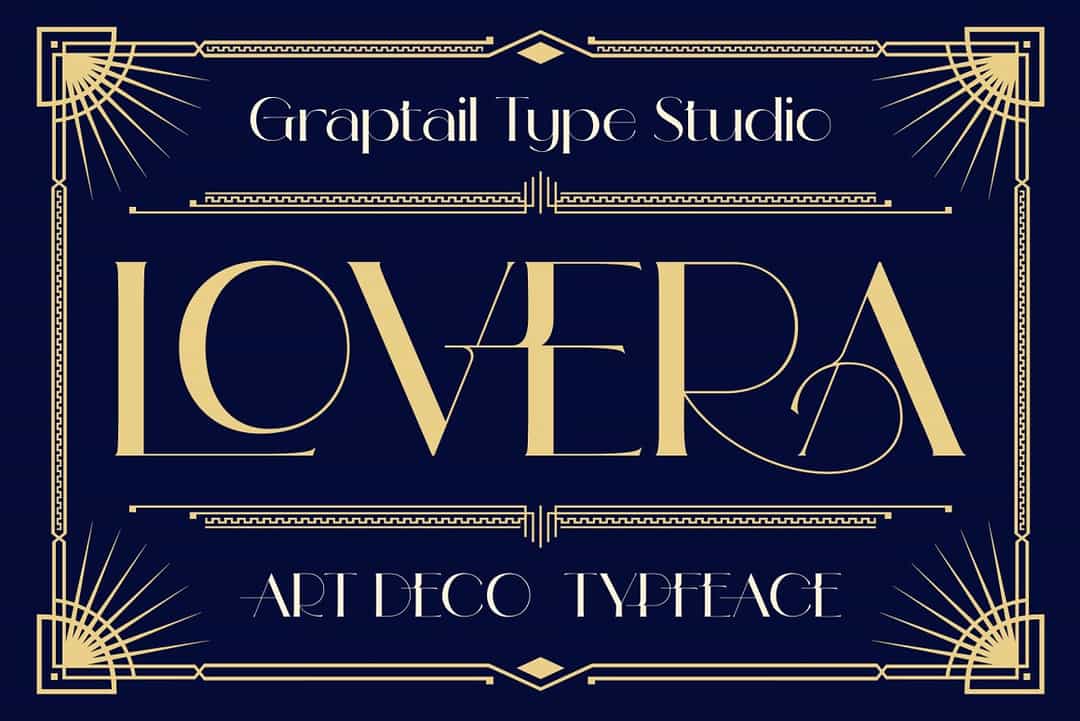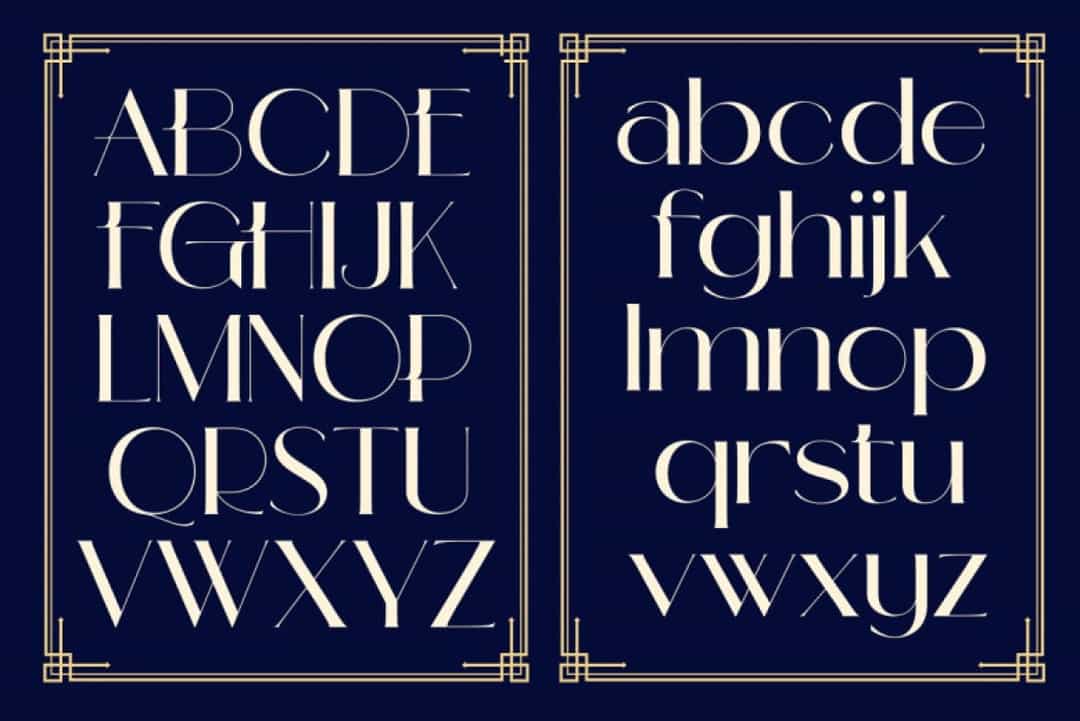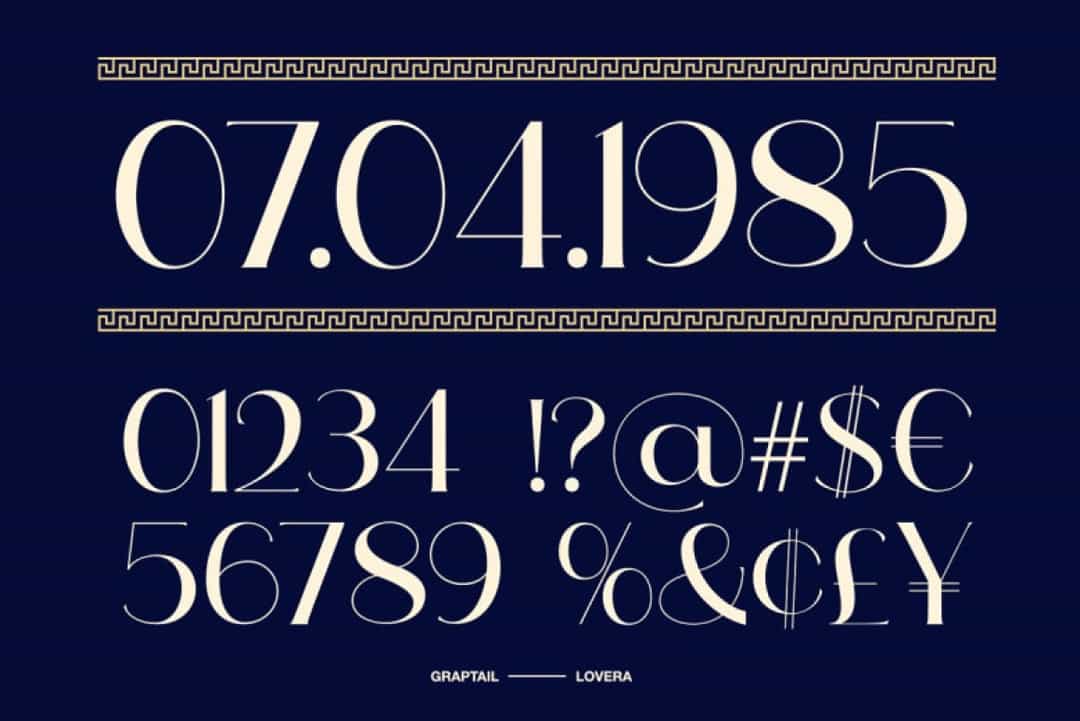
Lovera Font adds sophisticated style to any look. Drawing its inspiration from Art Deco design, Lovera Font is modern in appearance with its vast selection of ligatures and stylistic variations making this serif font highly adaptable – the curly passionate appearance adds a distinctive edge for this type of font.